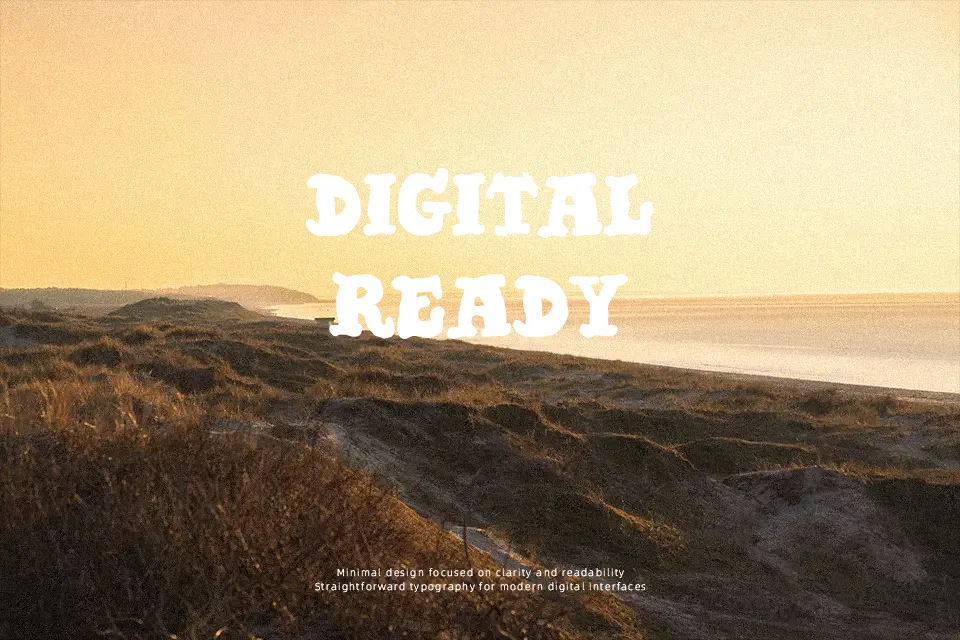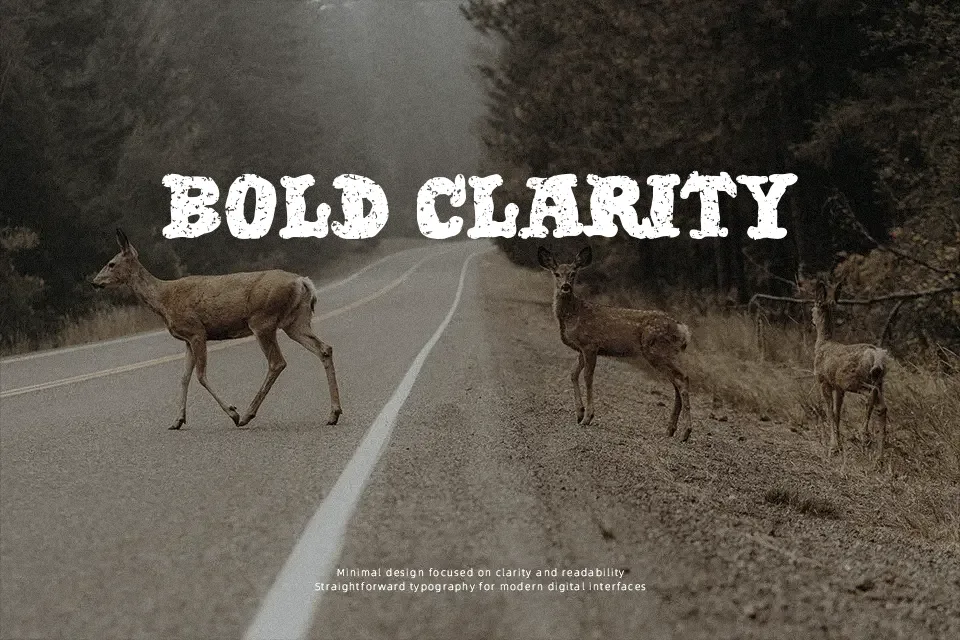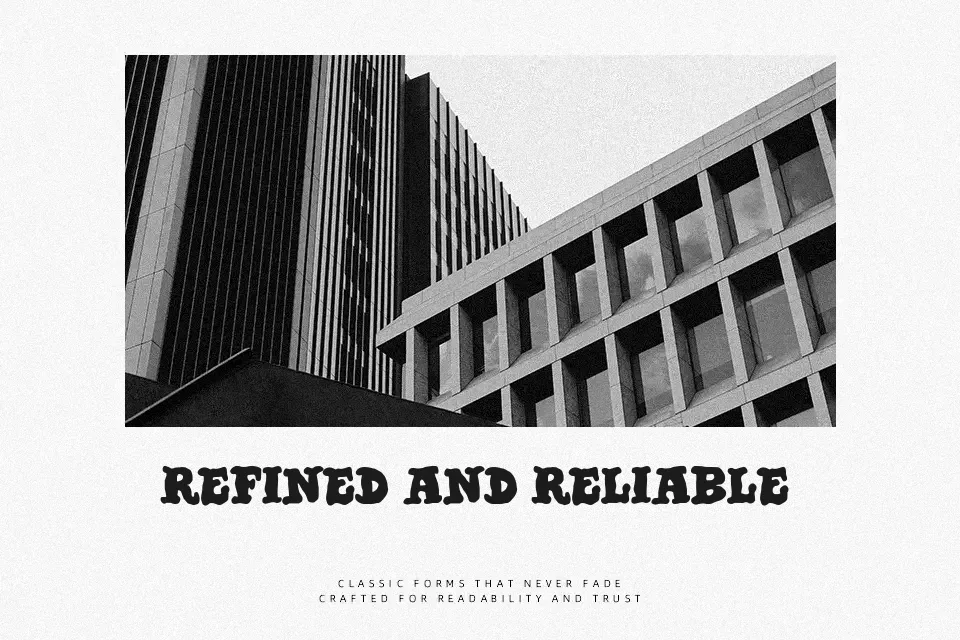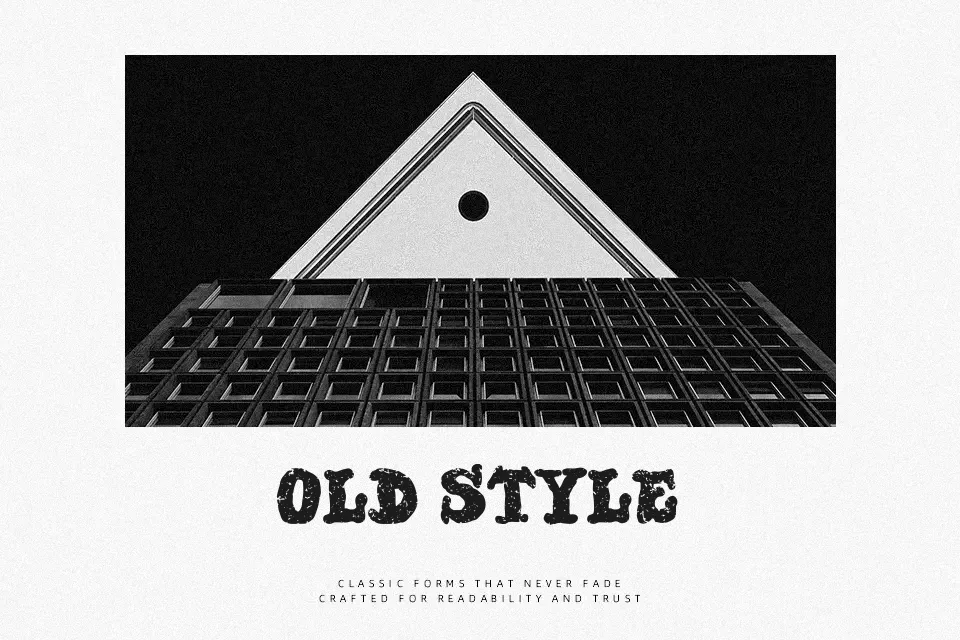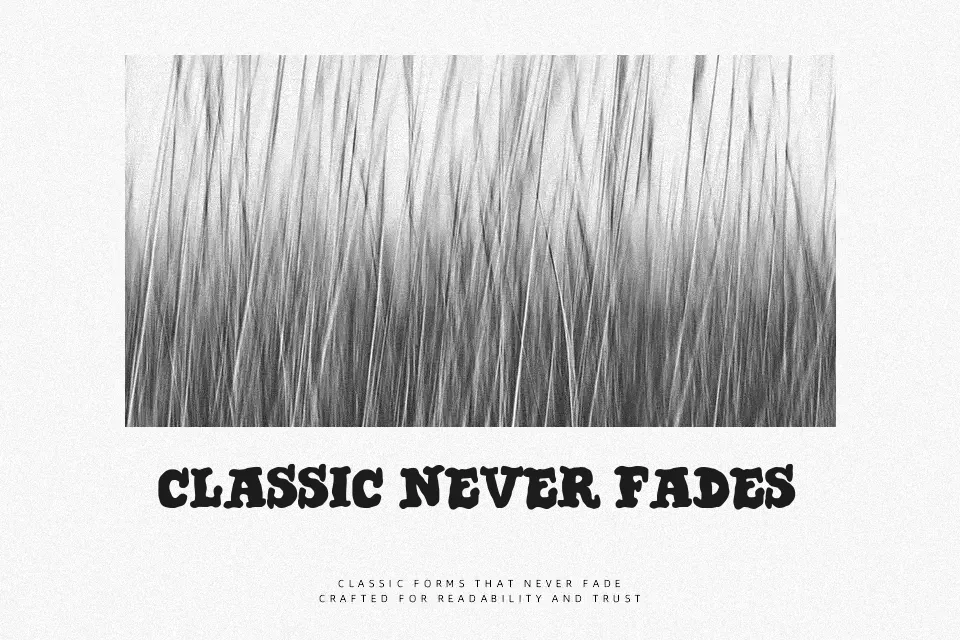
Papa Sardine Font
Designed by Eko Bimantara
Papa Sardine Font works best as a prominent headline face, using weighty serif forms and visibly weathered edges to create a rough printed texture. Its broad proportions and sturdy strokes give uppercase and lowercase text a firm, old-fashioned rhythm, while the irregular surface keeps the design from feeling overly polished. Spacing remains most effective when text is kept short and generously sized. It suits labels, signage, and poster copy where a worn visual character is useful. The distressed detail supports strong display impact, but becomes less clear in small captions or extended reading.
Best For: vintage food packaging,restaurant signage,poster headlines,apparel graphics
Perfect for headline, packaging, and poster, with a bold and decorative style.